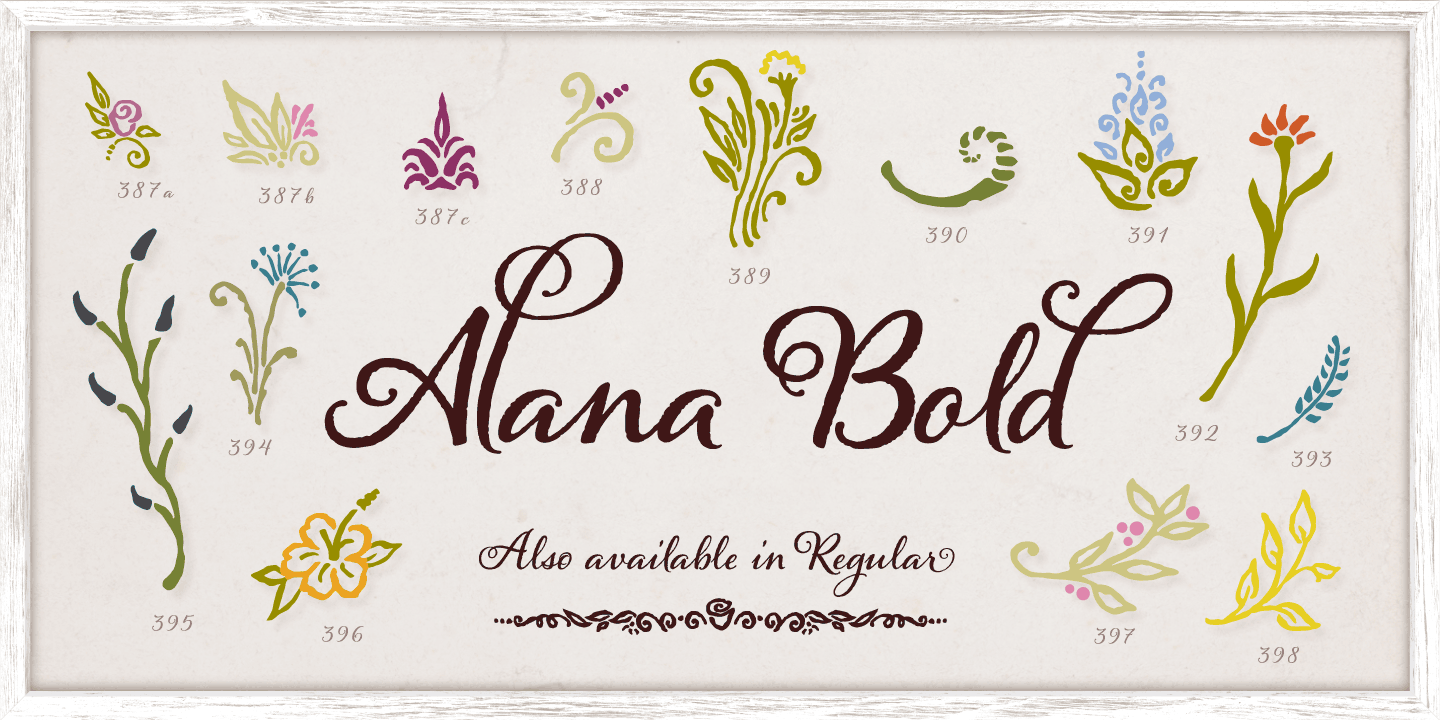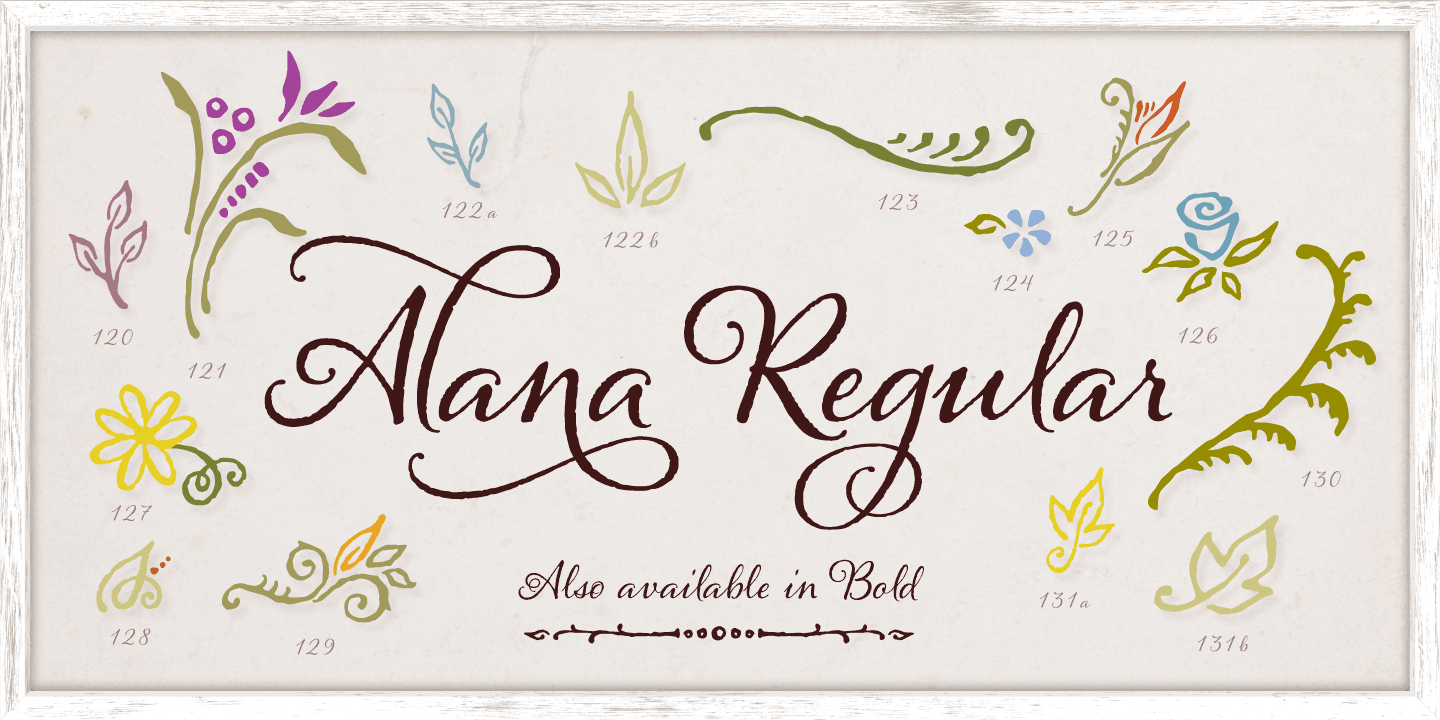
Alana Pro Fonts
Alana Font Free Download - Votes, rated based on results identification. Web explore alana designed by laura worthington at adobe fonts. Alana is a connected script that glows with casual elegance. Web alana you script font. Web licensed for commercial use.
Alana Font Free Download - Don't worry, our files are safe from malware or viruses. A script typeface with 2 styles, available from adobe fonts for. Web alana you script font 23 font bundle : Votes, rated based on results identification. Alana is a connected script that glows with casual elegance.
Alana Font Free Download - Web alana you script font 23 font bundle : Alana is a connected script that glows with casual elegance. Web licensed for commercial use. Web click the download button to download the compressed file in.zip format. Available in both ttf and otf typeface.
Alana Font Free Download - Web get your very own free download of the alana you font, designed and created by alifirman. Alana is a connected script that glows with casual elegance. Web licensed for commercial use. A script typeface with 2 styles, available from adobe fonts for. Votes, rated based on results identification.
Alana Font Free Download - Web alana you script font. A script typeface with 2 styles, available from adobe fonts for. Votes, rated based on results identification. Alana is a connected script that glows with casual elegance. Web licensed for commercial use.
Alana Font Free Download - Web alana you script font. Alana is a connected script that glows with casual elegance. Web alana you script font 23 font bundle : Available in both ttf and otf typeface. Web licensed for commercial use.
Alana Font Free Download - Alana is a connected script that glows with casual elegance. Web explore alana designed by laura worthington at adobe fonts. A script typeface with 2 styles, available from adobe fonts for. Don't worry, our files are safe from malware or viruses. Web click the download button to download the compressed file in.zip format.
Alana Font Free Download - Web licensed for commercial use. Alana is a connected script that glows with casual elegance. Web alana you script font 23 font bundle : Web explore alana designed by laura worthington at adobe fonts. Web alana you script font.
Alana Font Free Download - Web alana you script font 23 font bundle : Available in both ttf and otf typeface. A script typeface with 2 styles, available from adobe fonts for. Web alana you script font. Web click the download button to download the compressed file in.zip format.
Alana Font Free Download - Available in both ttf and otf typeface. A script typeface with 2 styles, available from adobe fonts for. Votes, rated based on results identification. Web click the download button to download the compressed file in.zip format. Web licensed for commercial use.
Alana Font Free Download - Web get your very own free download of the alana you font, designed and created by alifirman. Web explore alana designed by laura worthington at adobe fonts. Votes, rated based on results identification. Alana is a connected script that glows with casual elegance. A script typeface with 2 styles, available from adobe fonts for.